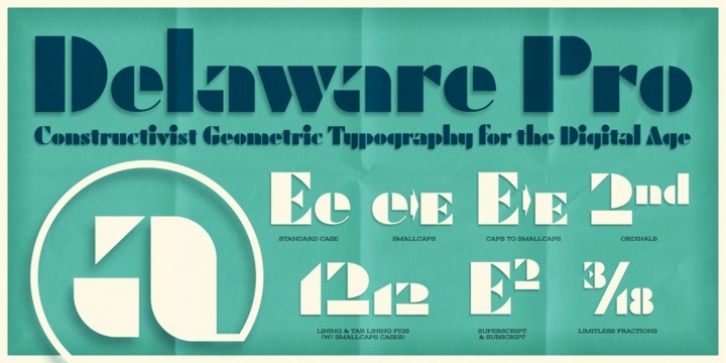
Publisher: Astigmatic
Constructivist flavor typography goes pro enters the digital era with Delaware Pro AOE.
Delaware Pro AOE is the revival and elaboration of a limited lettering specimen from a series of old loose book pages. What began as just Capitals & Lowercase was expanded to a rich pro glyphset including numerals, punctuation, small caps, small caps scaled figures, unlimited fractionals, superiors & inferiors, ordinals, tabular & proportional figures, and an expanded language glyph set.
From titling to nightclub posters, fashion spreads to stencil play, the Constructivist Era is built up and out, waiting for you to put it to use.